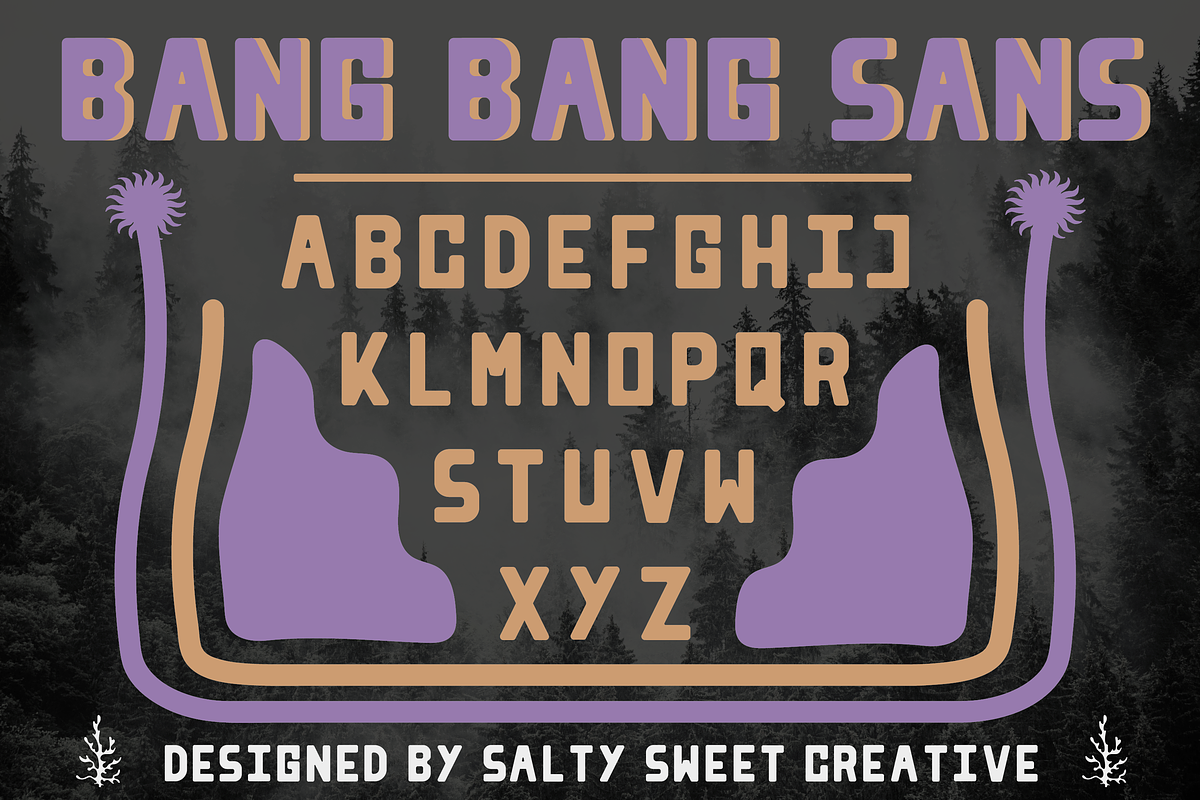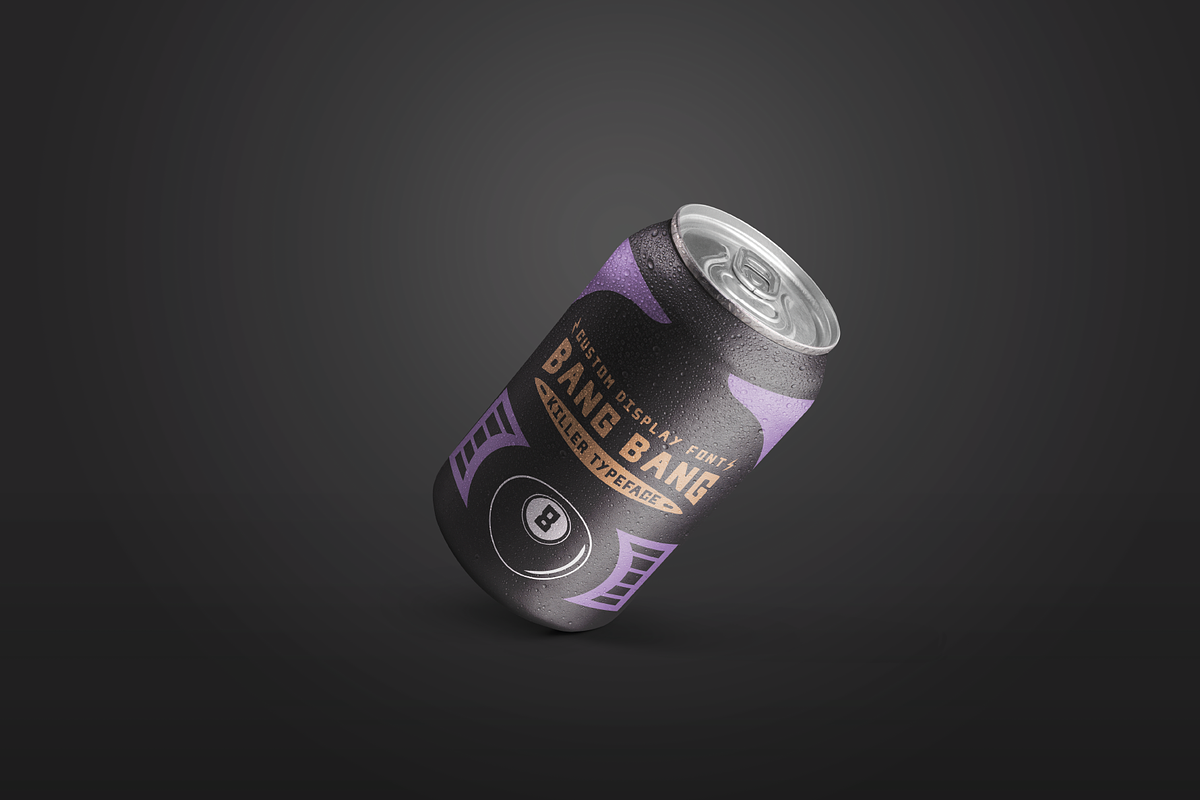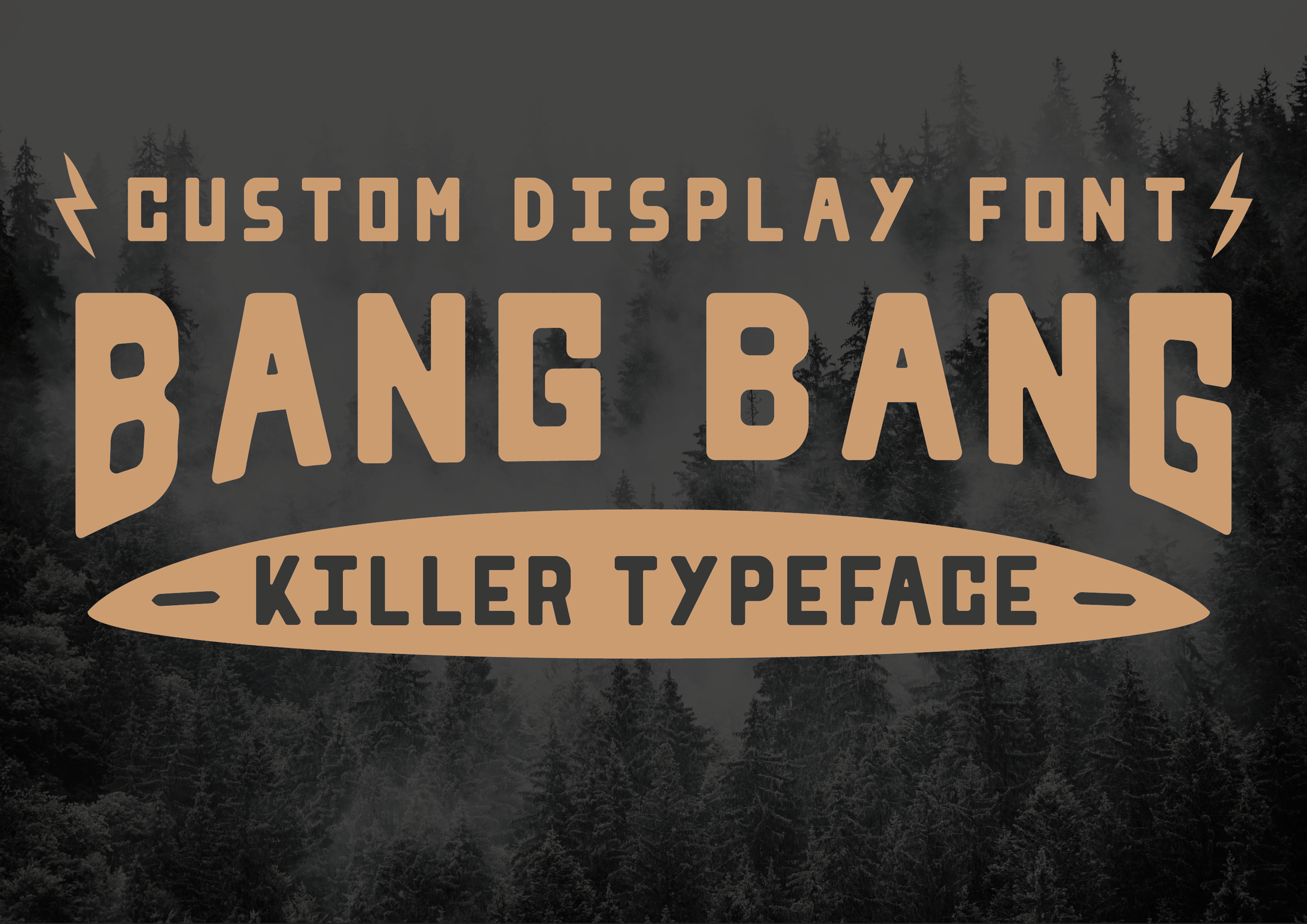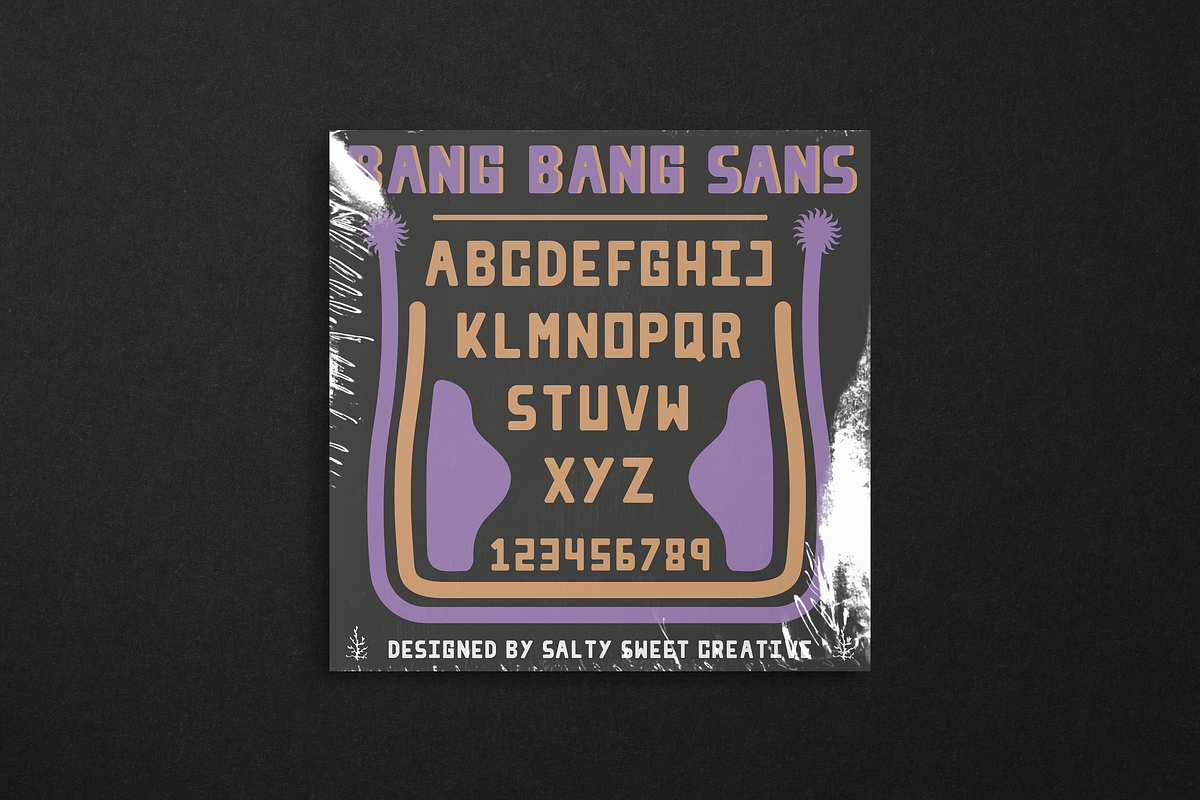
BANG BANG SANS - A Bold Display Font
Bang Bang is a custom made bold, boxy display font perfect for stand out titles, packaging, merchandise, products or logos. Designed specifically with branding in mind this font suits those that want to stand out and be seen whilst still looking the part mixing a blocky, bold vibe with a more refined standard font.